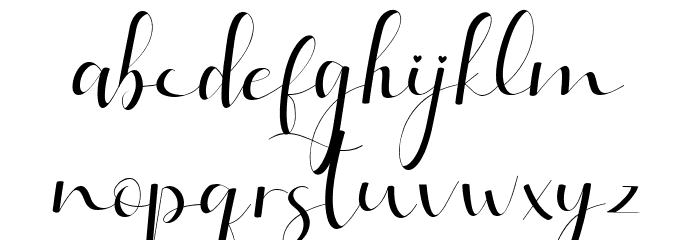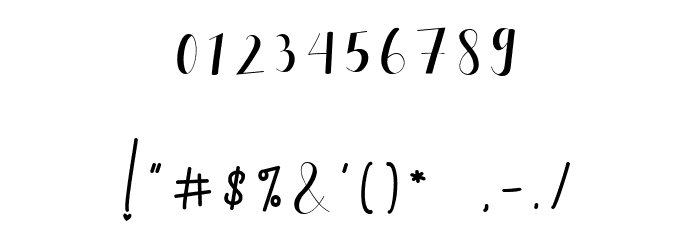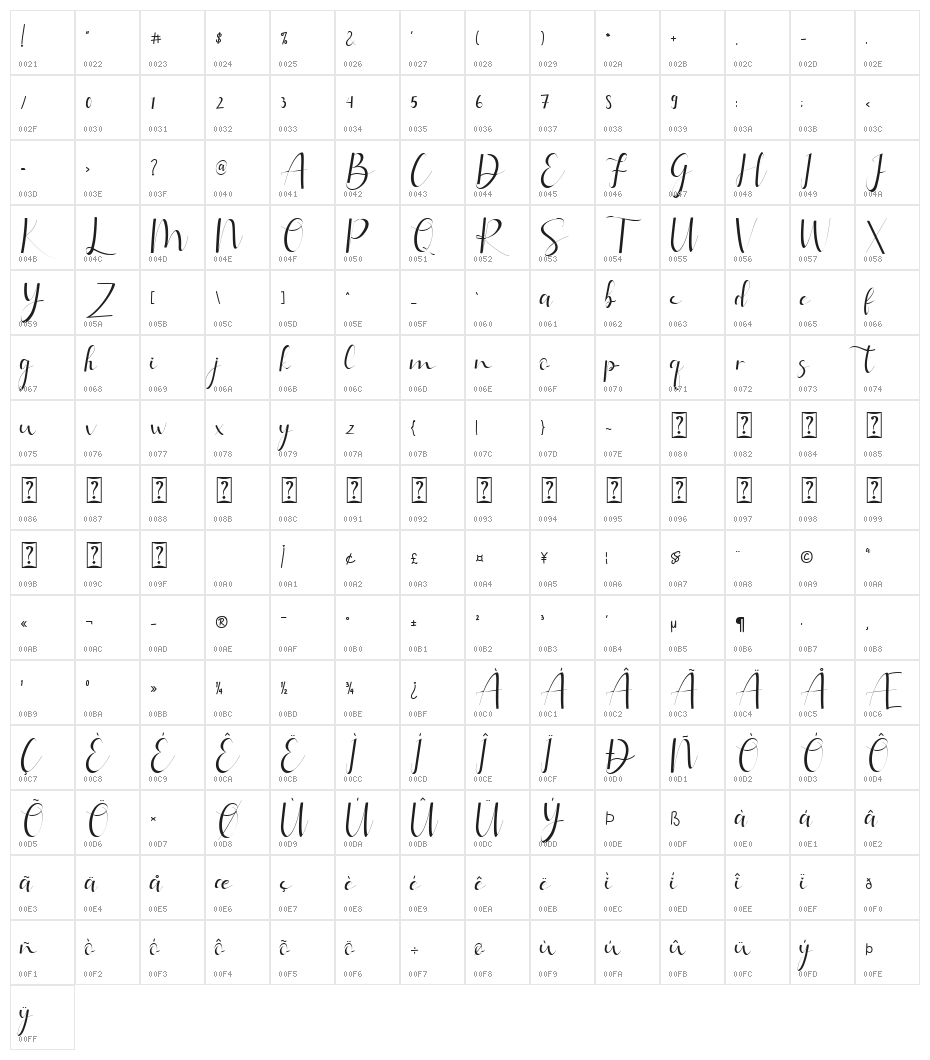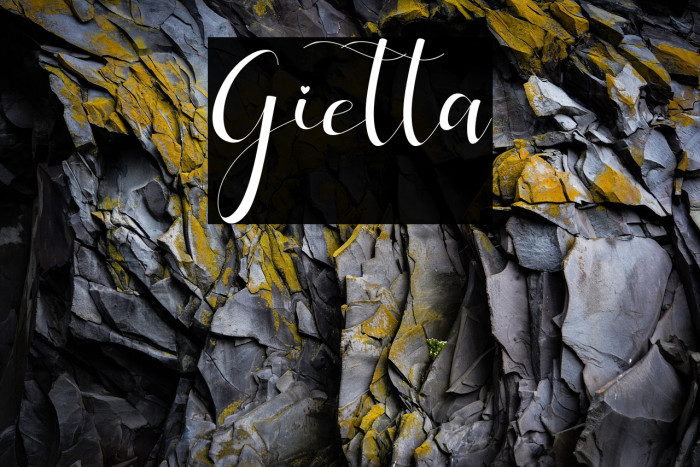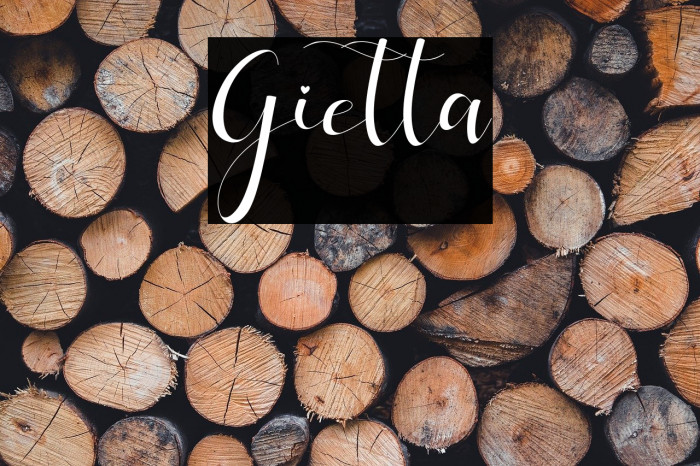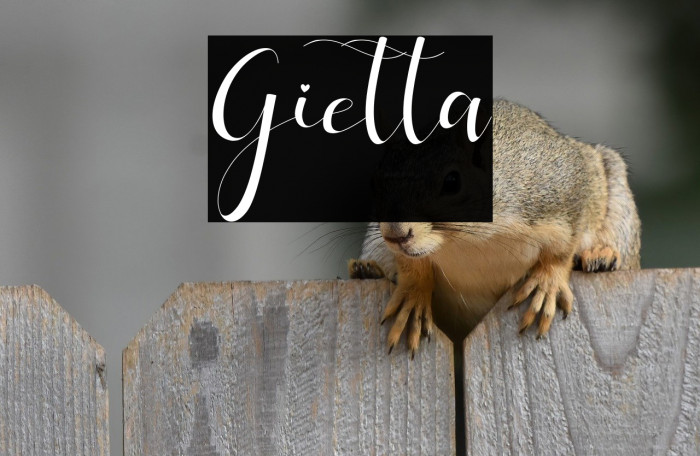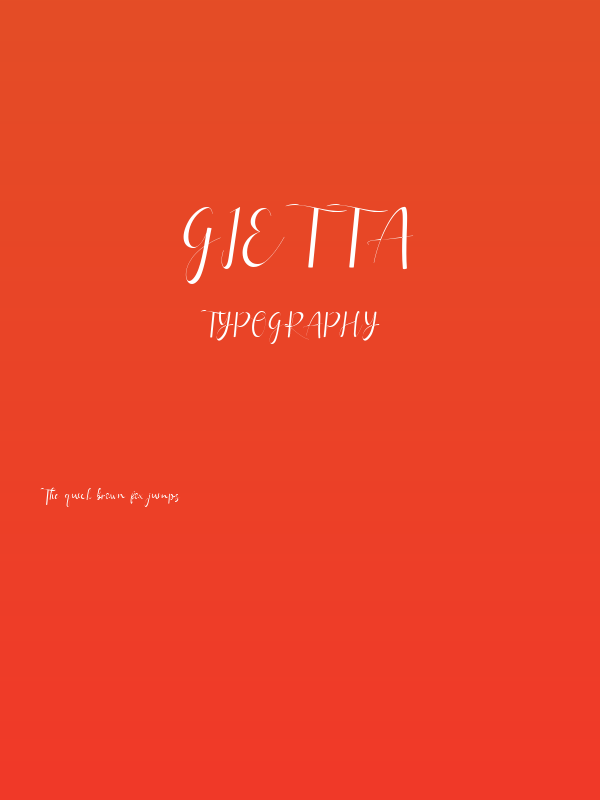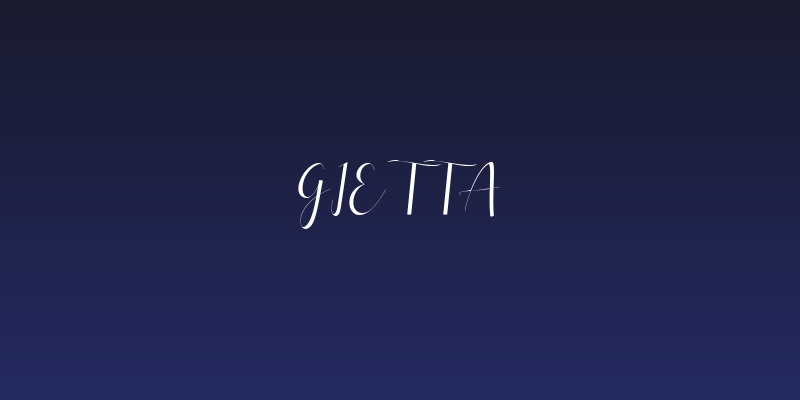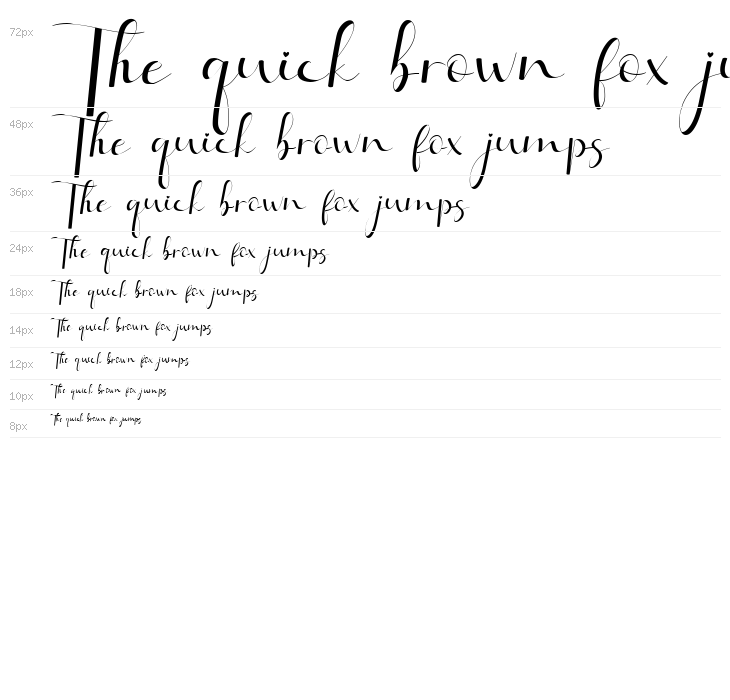
Gietta Font
This font exudes elegance and sophistication with its fluid, cursive style. The characters are crafted with a delicate balance of thick and thin strokes, creating a dynamic and graceful appearance. The uppercase letters are particularly striking, featuring sweeping curves and flourishes that add a touch of drama. The lowercase letters maintain a consistent flow, enhancing readability while preserving the font's artistic flair. Numbers and special characters are designed with the same attention to detail, ensuring a cohesive look across all text elements. This font is perfect for projects that require a touch of elegance and creativity.
An elegant, cursive font with dynamic strokes and artistic flourishes.
- Proposed Projects: Ideal for wedding invitations, branding, elegant packaging, and artistic posters.
- Category: Script
- Overall Style: Elegant
- Use Case: Logos, Invitations, Decorative text